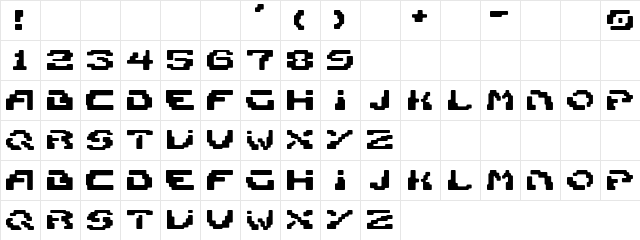
First Kinghtgale Regular
Design Context for First Kinghtgale Typeface
First Kinghtgale is a composed and adaptable typeface that performs quietly and consistently across a wide range of design contexts.